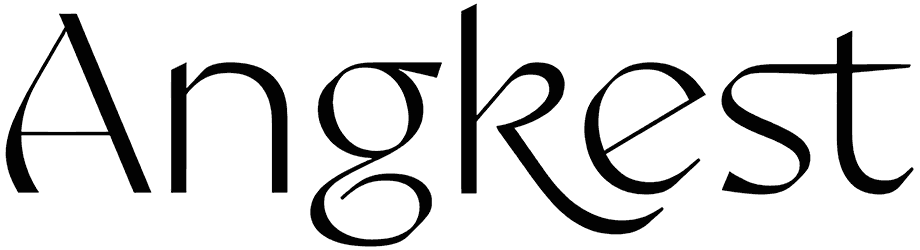
Angkest Font
There’s always a more innovative way to decorate your next wedding invitations, florist’s signs, etc. Angkest here is one of those things that can lend you a hand with that, even when you’re creating business cards for event planners and interior designers.
Let this logo font pave the way for you to make the best impression on your audience from the start. After all, your art will never look the same after adding this handsome modern font to it.